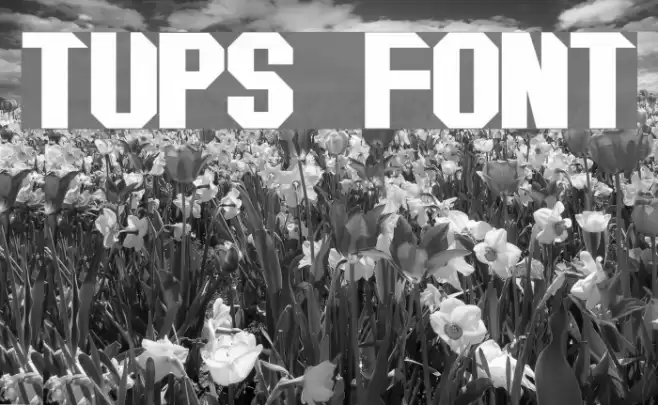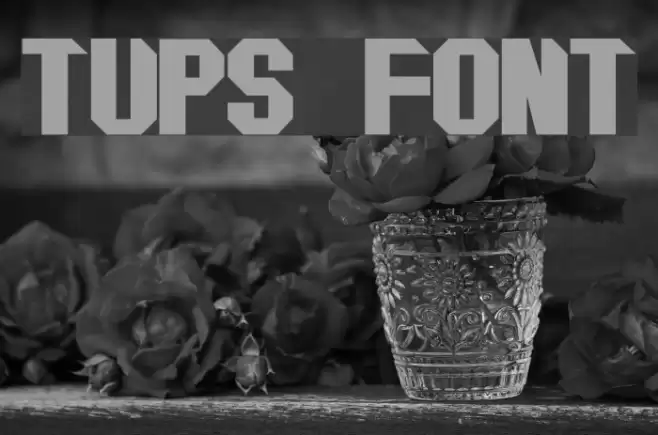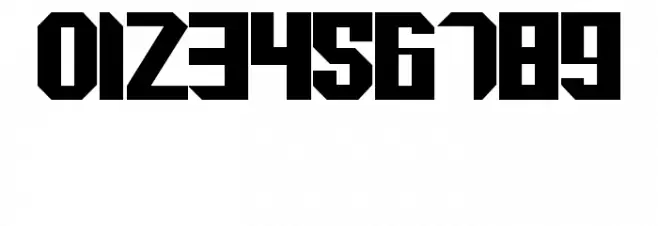
tups Font
tups Description
This font features a bold, geometric design with sharp angles and a blocky appearance. The characters are uniform in height, creating a cohesive and structured look. The uppercase letters are particularly striking, with a strong presence that commands attention. The numbers and special characters maintain the same bold style, ensuring consistency across all text elements. This font's design is reminiscent of industrial or futuristic themes, making it suitable for projects that require a modern and impactful aesthetic.
A bold, geometric font with a blocky, industrial design from Futuristic fonts.
- Proposed Projects: Ideal for branding, posters, video game graphics, and any project requiring a modern, bold statement.